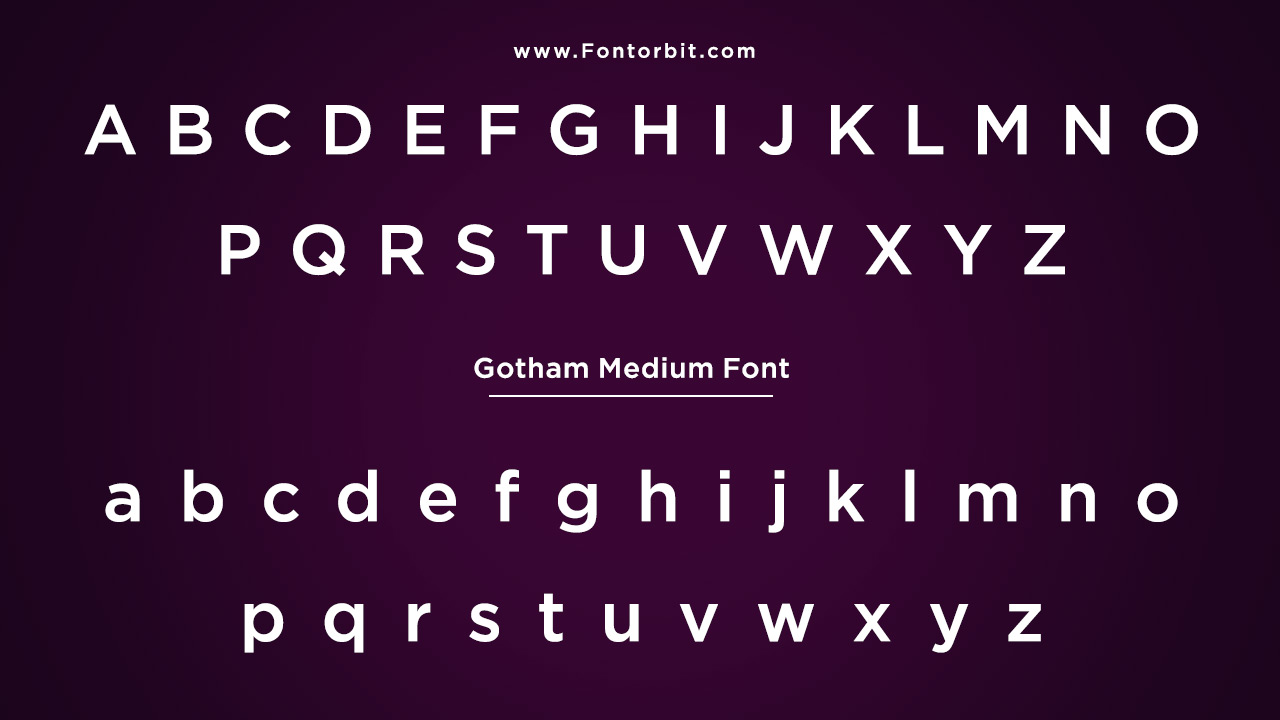
Gotham Medium is a geometric sans-serif typeface designed by Jonathan Hoefler and Tobias Frere-Jones in 2000 for Hoefler & Co. The font is part of the widely known Gotham family, which has gained recognition for its modern, clean, and highly legible design.
Initially inspired by mid-20th-century architectural signage, Gotham Medium combines clarity and authority with a minimalistic style, making it versatile for various professional applications.
Gotham Family Includes
The Gotham family is a broad collection of styles, offering a wide range of weights and variations for different design needs. These include:
- Gotham Thin
- Gotham Thin Italic
- Gotham Extra Light
- Gotham Extra Light Italic
- Gotham Light
- Gotham Light Italic
- Gotham Book
- Gotham Book Italic
- Gotham Medium
- Gotham Medium Italic
- Gotham Bold
- Gotham Bold Italic
- Gotham Black
- Gotham Black Italic
- Gotham Ultra
- Gotham Ultra Italic
- Gotham Narrow Thin
- Gotham Narrow Thin Italic
- Gotham Narrow Extra Light
- Gotham Narrow Extra Light Italic
- Gotham Narrow Light
- Gotham Narrow Light Italic
- Gotham Narrow Book
- Gotham Narrow Book Italic
- Gotham Narrow Medium
- Gotham Narrow Medium Italic
- Gotham Narrow Bold
- Gotham Narrow Bold Italic
- Gotham Narrow Black
- Gotham Narrow Black Italic
- Gotham Narrow Ultra
- Gotham Narrow Ultra Italic
- Gotham Condensed Thin
- Gotham Condensed Thin Italic
- Gotham Condensed Extra Light
- Gotham Condensed Extra Light Italic
- Gotham Condensed Light
- Gotham Condensed Light Italic
- Gotham Condensed Book
- Gotham Condensed Book Italic
- Gotham Condensed Medium
- Gotham Condensed Medium Italic
- Gotham Condensed Bold
- Gotham Condensed Bold Italic
- Gotham Condensed Black
- Gotham Condensed Black Italic
- Gotham Condensed Extra Black
- Gotham Condensed Extra Black Italic
- Gotham Condensed Ultra
- Gotham Condensed Ultra Italic
- Gotham Extra Narrow Thin
- Gotham Extra Narrow Thin Italic
- Gotham Extra Narrow Extra Light
- Gotham Extra Narrow Extra Light Italic
- Gotham Extra Narrow Light
- Gotham Extra Narrow Light Italic
- Gotham Extra Narrow Book
- Gotham Extra Narrow Book Italic
- Gotham Extra Narrow Medium
- Gotham Extra Narrow Medium Italic
- Gotham Extra Narrow Bold
- Gotham Extra Narrow Bold Italic
- Gotham Extra Narrow Black
- Gotham Extra Narrow Black Italic
- Gotham Extra Narrow Ultra
- Gotham Extra Narrow Ultra Italic
Gotham Medium is suitable for both digital and print applications thanks to its excellent readability and modern aesthetic. The font’s versatility suits professional settings, from corporate branding to editorial layouts. Its geometric structure gives a modern, trustworthy vibe, making it suitable for presentations, websites, and even large-format designs like billboards.
- Corporate branding
- Political campaigns
- Advertising materials
- Editorial
- Print media
- Website design
- Wayfinding
Gotham Medium stands out for its clarity and versatility, making it a favorite for designers across multiple industries. Its ability to communicate professionalism while maintaining a modern edge has secured its place in both iconic branding and everyday design applications.
1.What Font Pairs Well With Gotham Medium?
Fonts like Times New Roman or Georgia work well as complementary serif fonts.
2.Is Gotham Medium Web-Safe?
No, but it can be embedded in websites through services like Google Fonts for alternatives like Montserrat.
3.What Makes Gotham Medium Unique?
Its geometric design, inspired by architectural lettering, gives it a bold, modern appearance.
4.Where Was Gotham Medium Famously Used?
It was prominently used in Barack Obama’s 2008 campaign branding.
5.What Alternatives Are Similar To Gotham Medium?
Montserrat, Lato, and Raleway offer similar geometric features.
6.What Is The Best Use Case For Gotham Medium?
Ideal for branding, editorial design, and large-format signage.
7.Can Gotham Medium Be Used In Print And Digital Formats?
Yes, its legibility and structure work well across both mediums.